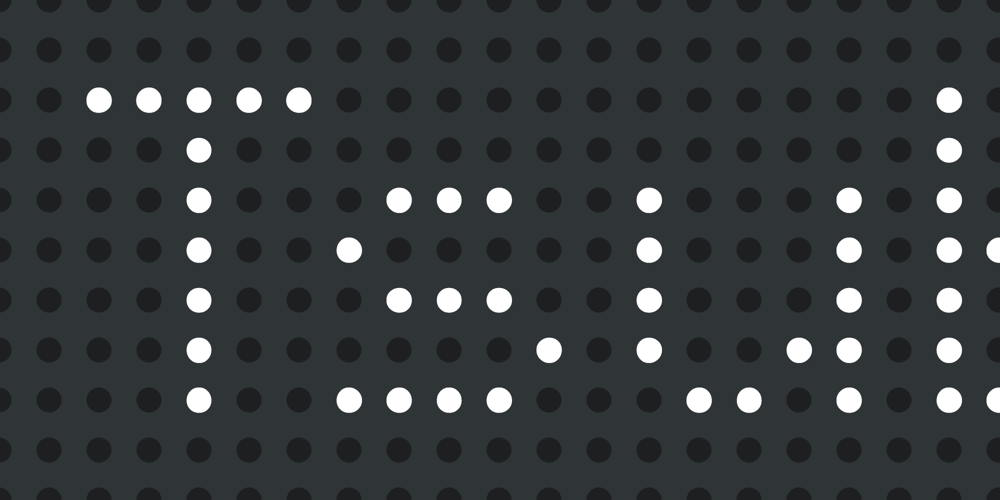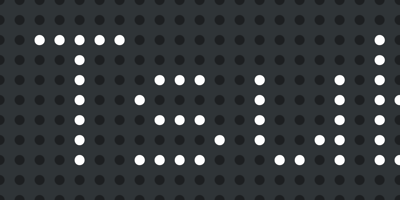
Tsubu Font Family was designed by Takehiko Ono and published by Takehiko Ono. Tsubu contains 2 styles and family package options. “Tsubu” (つぶ) means something small and round, like a fruit seed or a grain of rice in Japanese.All characters are completely geometric, consisting of no more than 5 x 12 dots, with a few exceptions. And proportional and monospace styles are available. It is recommended that letter spacing be set to 0 to maintain dot pitch. When the line height is set to 100%, the dot pitch is aligned horizontally and vertically, resulting in a beautiful geometric display.